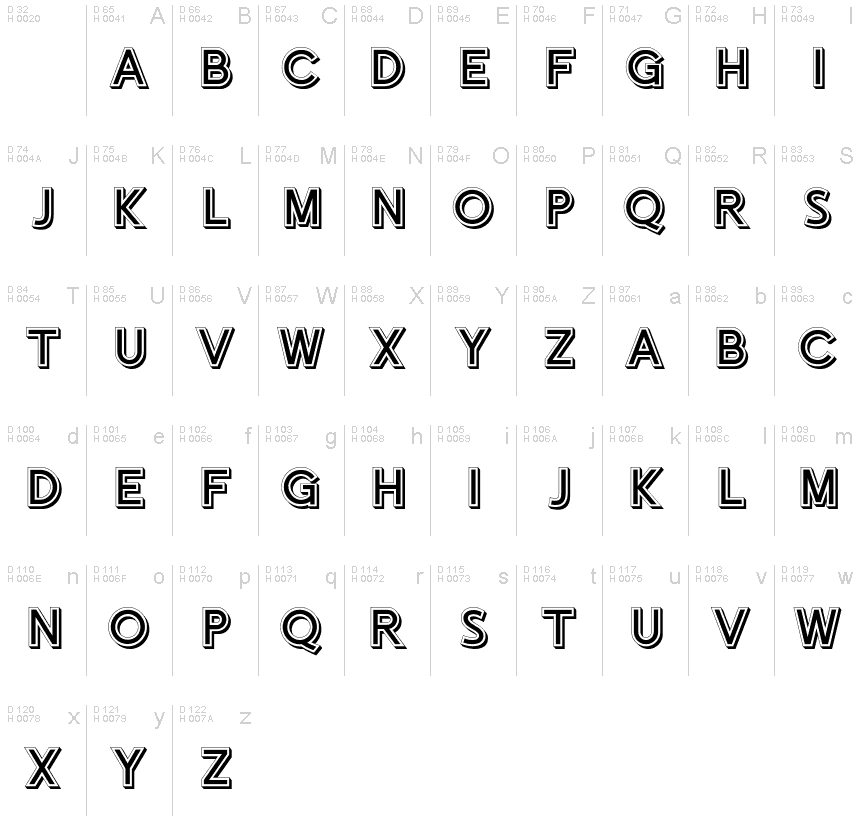
Chortle Faces Regular
Chortle Faces, designed by Vladimir Nikolic, is a stunning display font that packs a punch with its decorative sans serif style. Perfectly suited for projects seeking a playful yet sophisticated aesthetic, this font is ideal for everything from children's book covers to event flyers and invitations. Its clean lines and bold lettering make it an excellent choice for headlines and titles, while its unique character shapes add an extra touch of whimsy to any design. Whether you're looking to add some personality to your branding or create eye-catching graphics, Chortle Faces is the perfect semi-bold typeface to help you stand out from the crowd.